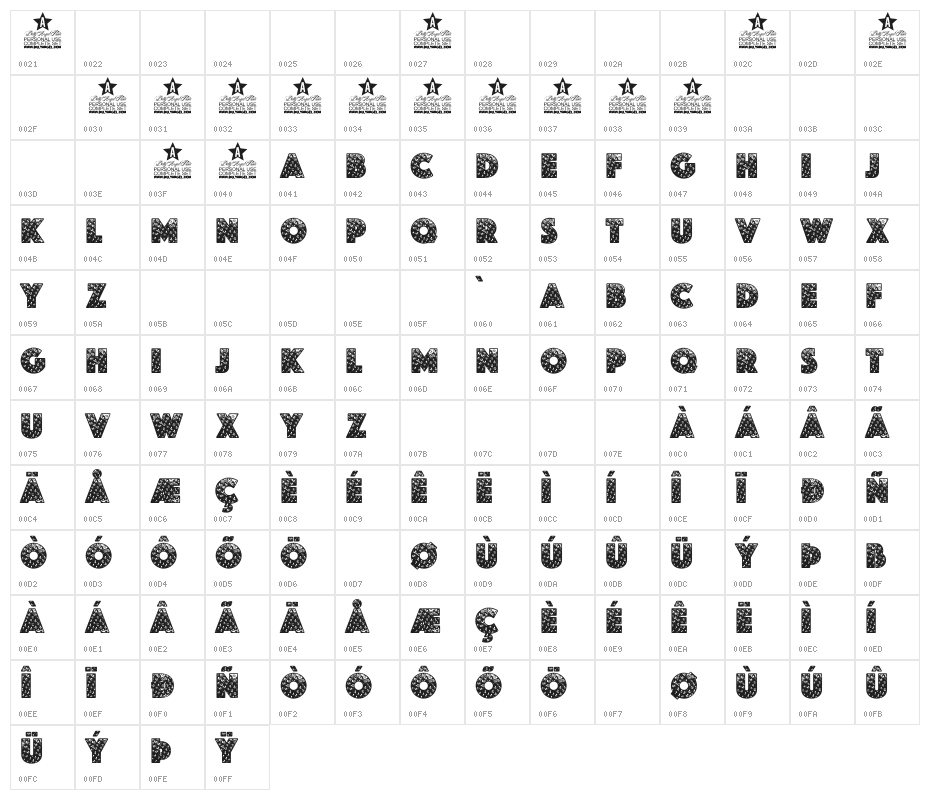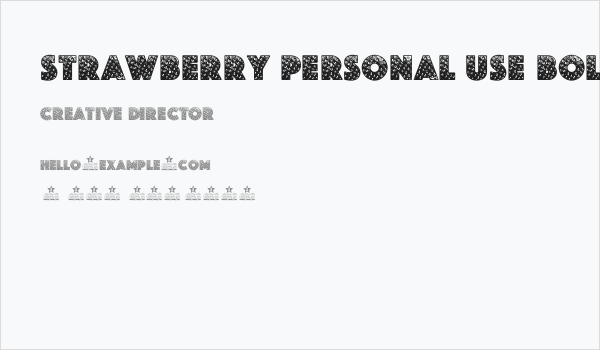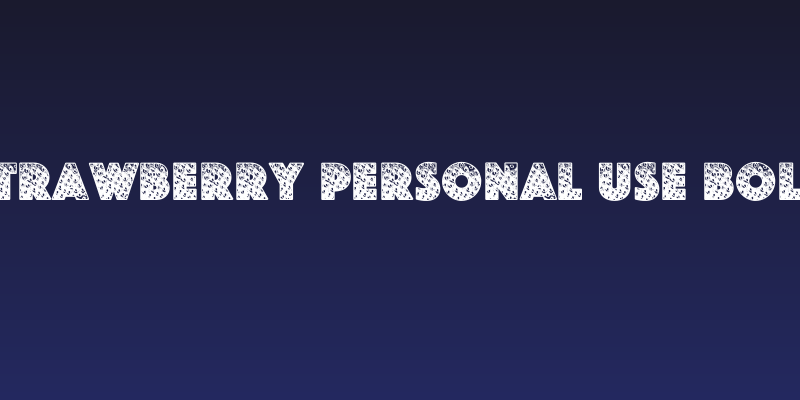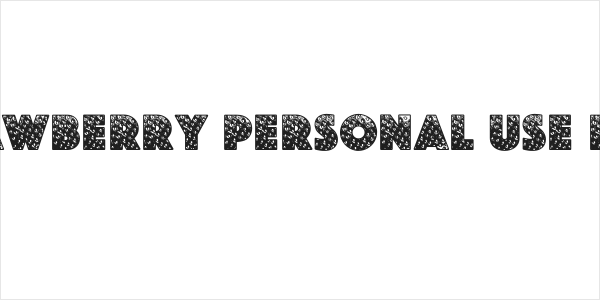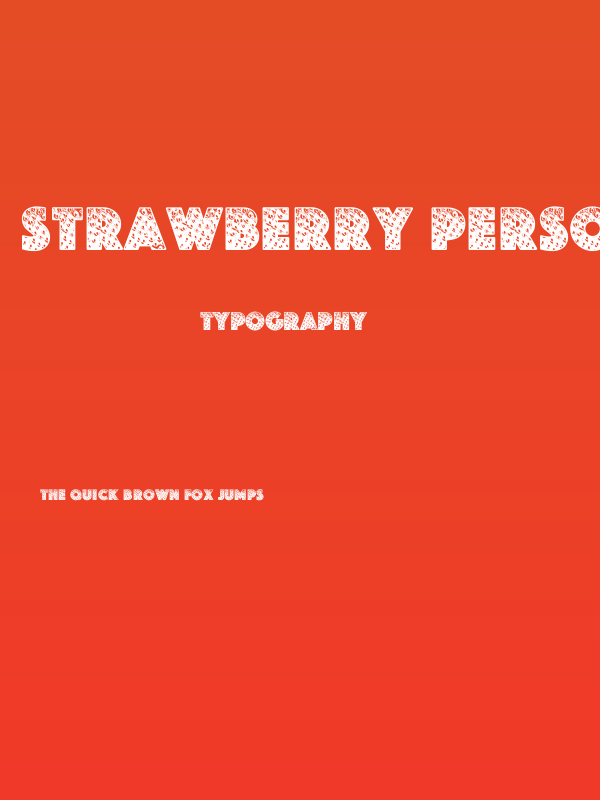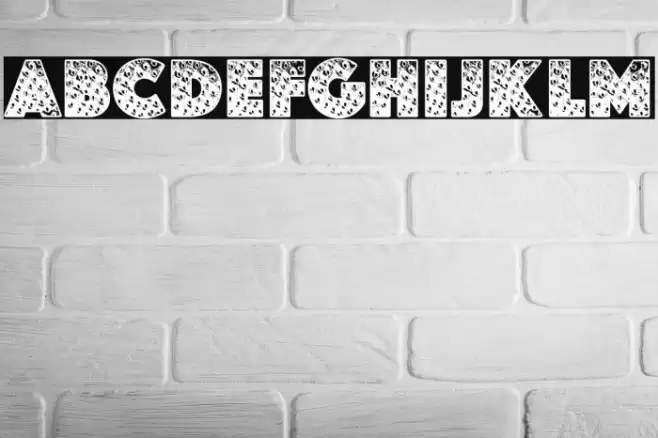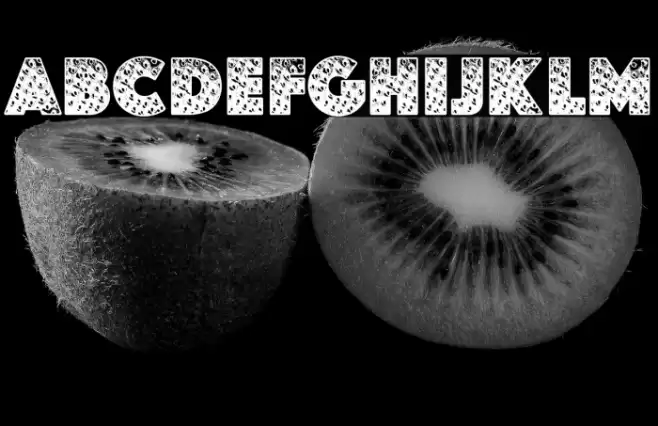
STRAWBERRY PERSONAL USE Bold Font
This font features bold, uppercase letters with a playful and decorative pattern inside each character, resembling a strawberry texture. The design is eye-catching and whimsical, making it ideal for creative projects. The letters are evenly spaced, providing a balanced and cohesive look. The bold weight and unique pattern make it stand out, perfect for designs that require a fun and lively touch.